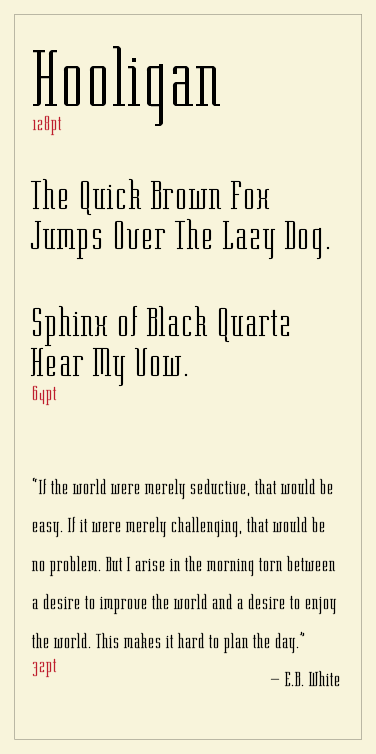
• Cleaning out the queue. I can't believe this one has been sitting in here for *gulp* eight months! I figure if I don't kick it out now, then it will sit here sequestered for another eight.
The title is inspired by my struggles to space this one properly.
A work in progress. Taking any and all feedback - especially for spacing.
Works best at specific sizes. Enjoy.
The sample presents the typeface "as is", in regards to spacing. Thoughts?
I really like this, especially at the larger sizes.
I like the E.B. White quote too.
Current spacing gives it a very 'clean' look and works well in my view.
Gave it a swift 10 to counteract the 1 from the troll :)
Whoever rated your work as 1.0 either made a technical mistake (very doubtful), or expressed his/her strong disapproval. What on Middle-Earth could excite someone on this perfectly designed, elegant type face to take such measures, I could not tell. I could only speculate, that you might have stepped on someone else's toes by creating a very similar font. Well, Hooligan is a nice variation on the tall, narrow serif theme (see Pacific Serif Light by Max Kisman, 2002), but a brief inspection can tell it is different enough to exist in its own right. Thus, my verdict is 10/10.
Elegance, squared-off. Very pleasant results.
nice. clean. interesting serifs. a sleek design. a winner :) i think this could be a useful example for Starflyer Demo 1 as a font done in FS that could be used for sci-fi projects and it's serif :) great job.
Very readable serif, congrats. Maybe I would have made a round @, but this is not my font.
If Frank Herbert had asked me to do the cover for Dune, I would have used this one for sure :)
My thought on spacing is serifs invade whitespace, therefore non-serified letter combination like the oo seem to have more space between each o than the space between the li, for example.
I know they are geometrical exact but visually different, so what I would do in FS to correct this is have all non-serified sides of the font slightly closer than serified sides. This is much easier with the filter set at 2, so you can take advantage of half brick positioning (if such term exists). Lately if I´m not going for a pixel font, I set them at 2, should the need arise.
I know remapping 200 chars. to a Filter 2 grid is quite tedious, so you may come with a lighter solution.
@frodo: I have it on good authority that the Troll who attempted this offense against my person was, as a small child, forced under strict and overbearing tutelage to read until memorized, long passages from Charlottes Web. I believe the E.B. White quote poked this Troll's cerebellum in the wrong place and birthed a painful reminder of a dark and sad time.
@funk_king: I hadn't considered the sci-fi angle, maybe in the right context it could work. Further laboratory research is required...
@igorrossi: Good suggestion. I'll experiment with that.
@cayo: Agreed. The "oo" is crying for a kerning pair. As are many others. I think it's probably the main reason I didn't make this public for so long; I didn't want to put it out there with so many spacing/kerning aberrations. Good suggestion on the 2x Filtering. I'll try that next time.
Comment by afrojet 4th october 2009
@afrojet: LOL! Kerning by hand in this case is more than worth the extra effort. This type of fontstruction just begs to be brought into FL/TypeTool for kerning pairs, etc. To me, this one weds a compressed modern face with the angularity of Berthold City. Even when typographers draw from the same wells of historic inspiration, the unique forms they create will happily stand on their own while being rooted firmly in typographic traditions. Working in the same mode while cloning another fonts metrics is another question (
Comment by William Leverette (will.i.ૐ) 5th october 2009
@will Wow, if you see a little Berthold City in Hooligan, then I am filled with Joy. I can say unequivocally that Berthold City Bold was the very first typeface I ever became aware of. The first typeface where I said, "Hey, those are cool letters, I wonder how I can use those same letters for something I want to do". And thus the journey began. It didn't take long to learn those letters were collected in things called fonts and that those fonts had names. And the name of my first love was Berthold City Bold. The image that started it all was the logo for a mid-80's Straight Edge Hardcore band called Society System Decontrol (SS Decontrol) or SSD for short. Good memories. In recent years, I've gone with Aachen, when times have called for a seriously sturdy slab-serif, but City will always hold a special place in my heart.
Congratulations! FontStruct Staff have deemed your FontStruction worthy of special mention. “Hooligan” is now a Top Pick.